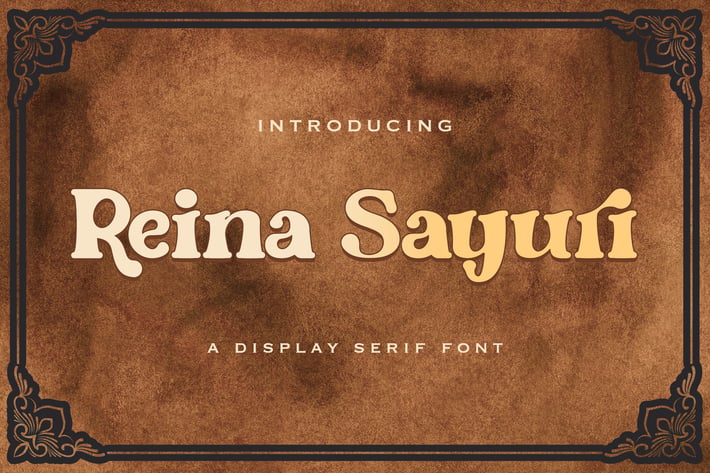
Reina Sayuri - Display Serif Font
Introducing Reina Sayuri - Display Serif Font
A Modern Vintage font that we created especially for elegant branding needs, with a unique shape, will be ready to add value to your brand. It is so nice to leverage designers or product owners who need solutions to make their designs look more stylish and modern. And especially for this font, we prepared any characters to help you create unlimited variations for your creative needs.